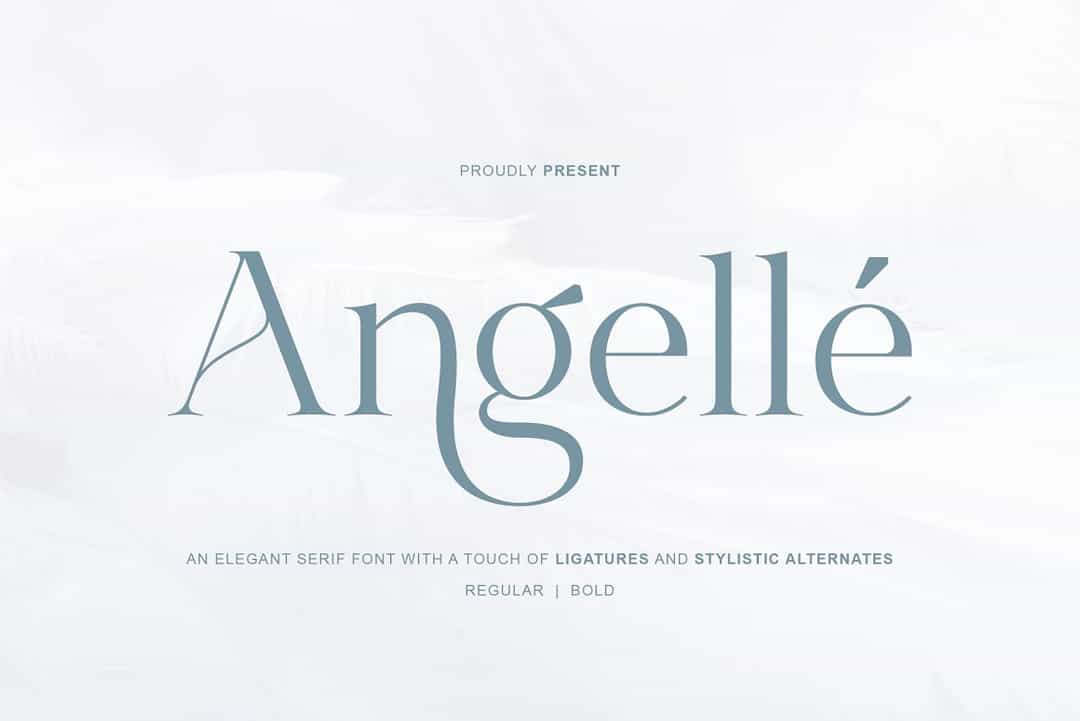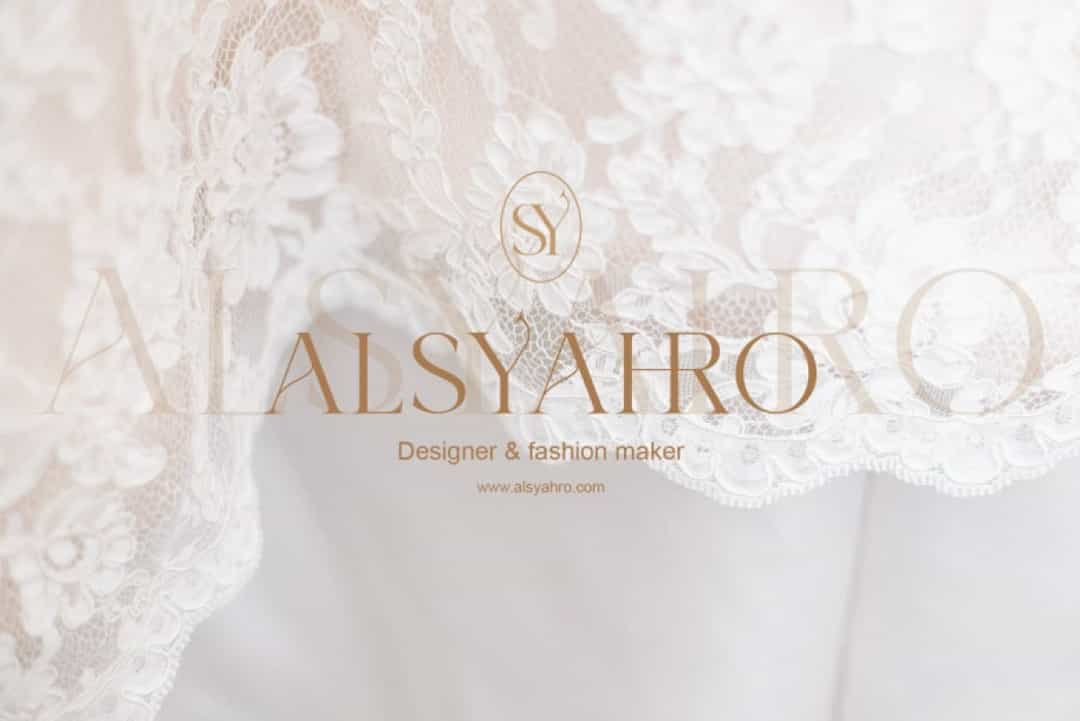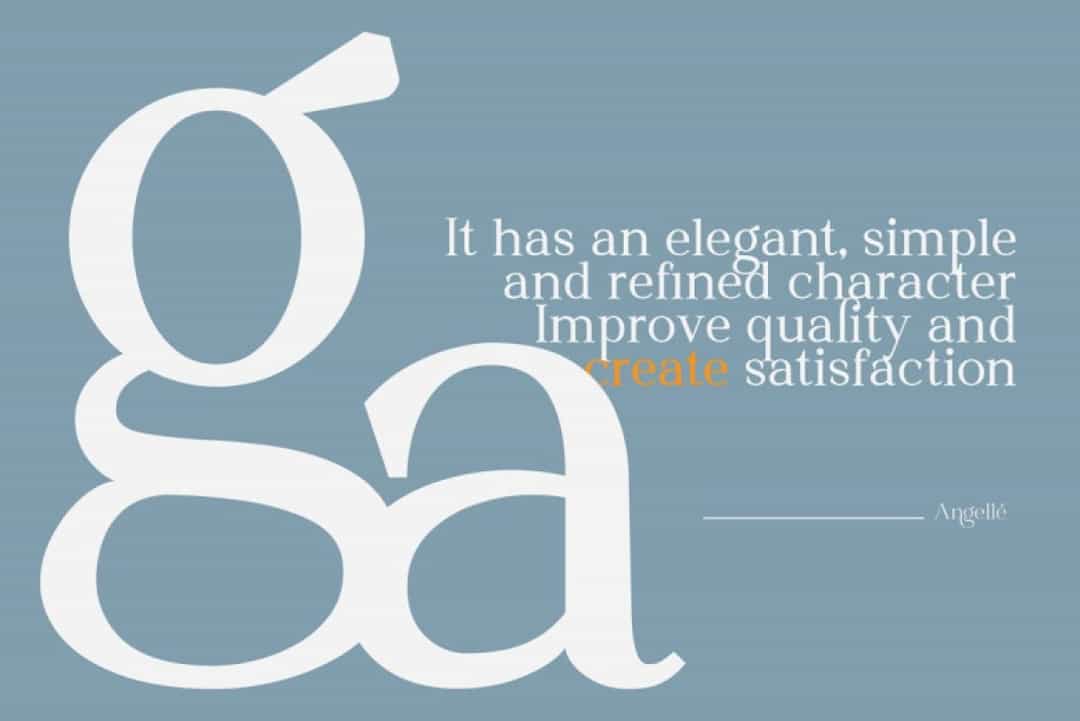
Discover Angelle Font, part of the Serif collection—a versatile and unique font perfect for adding a personal touch to your projects. Download it for free and enjoy crafting designs with style, from invitations to social media posts. This font is available exclusively for personal use, giving you the freedom to create without limits. Unlock your creativity with Angelle Font today!
Angelle is a serif typeface with two options for Regular and Bold font sizes, Ligature support and Stylistic Alternatives features that give this font its soft yet sophisticated character. People lucky enough to use this font find great joy in it, using it for wedding invitations, presentations, magazine covers, web designs, and countless other designs.